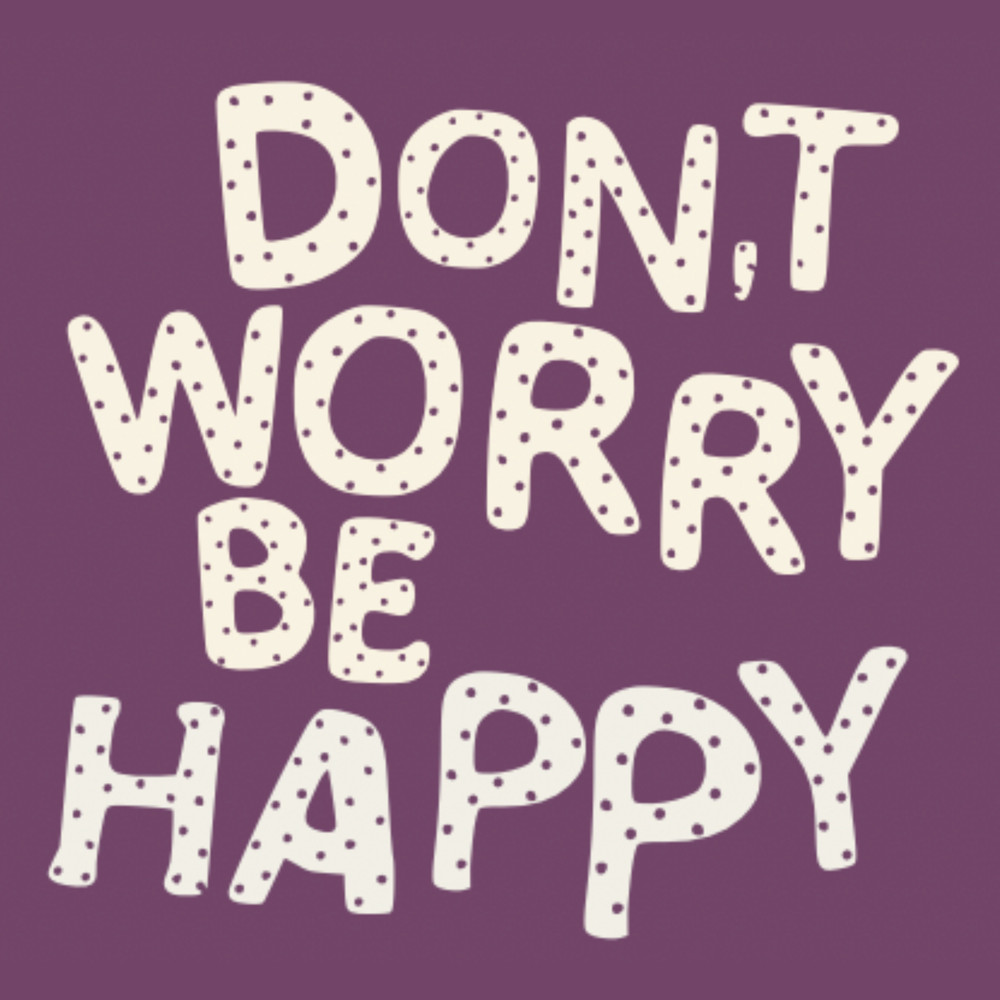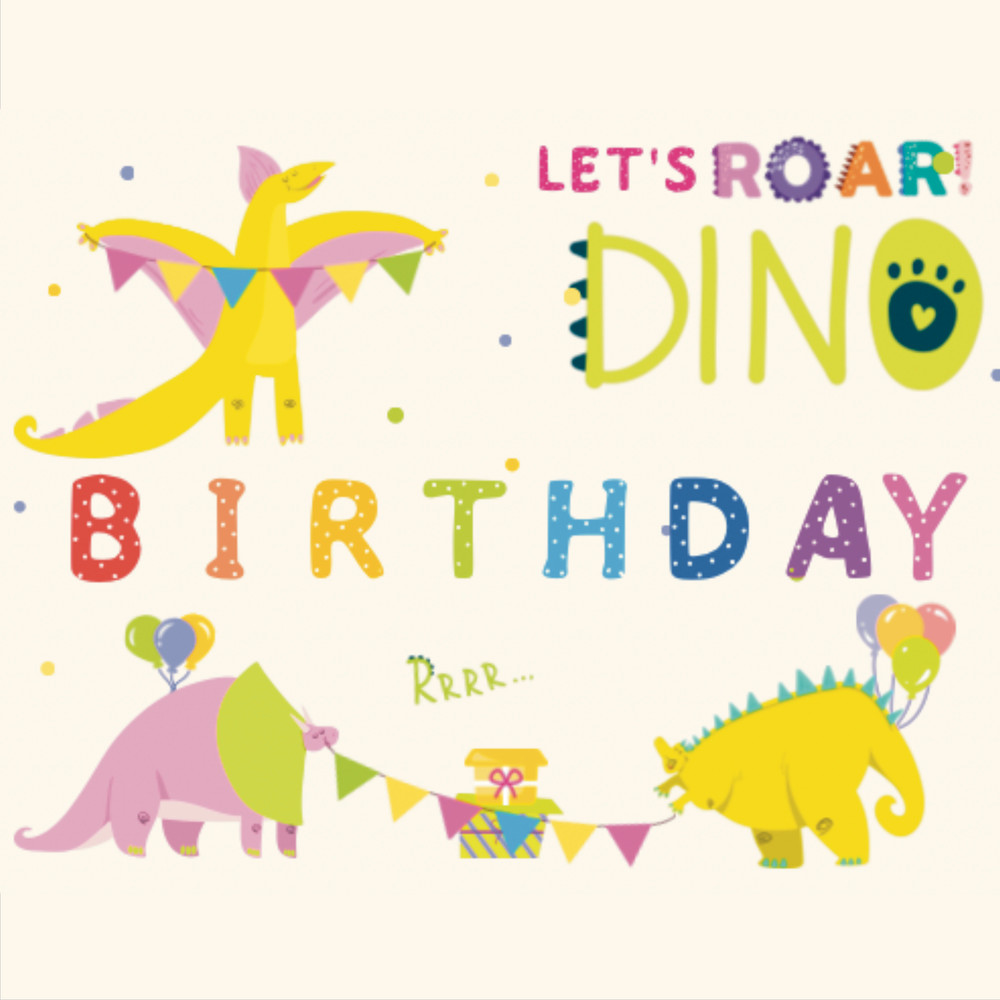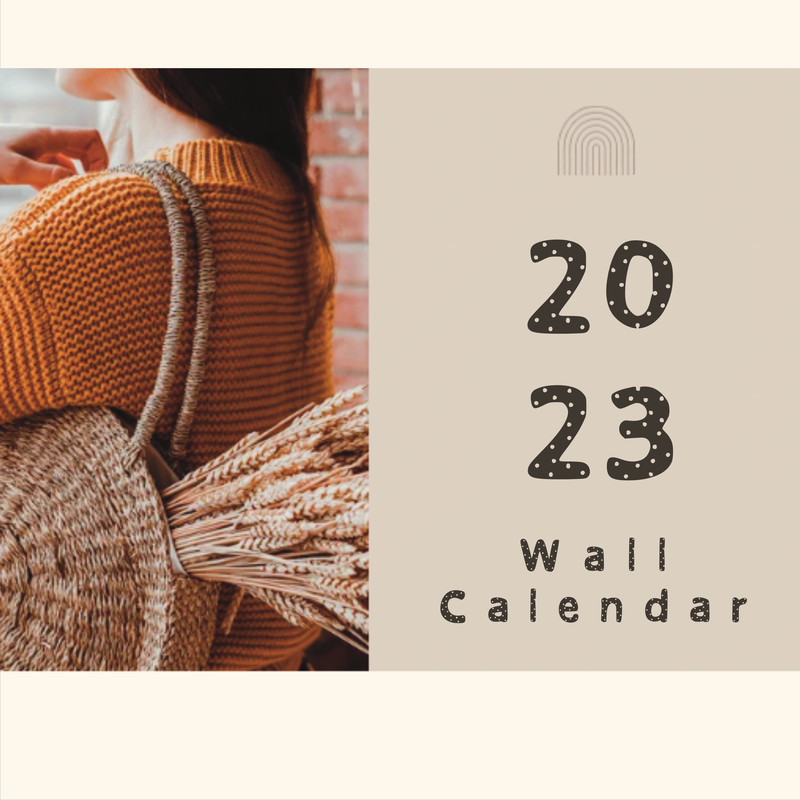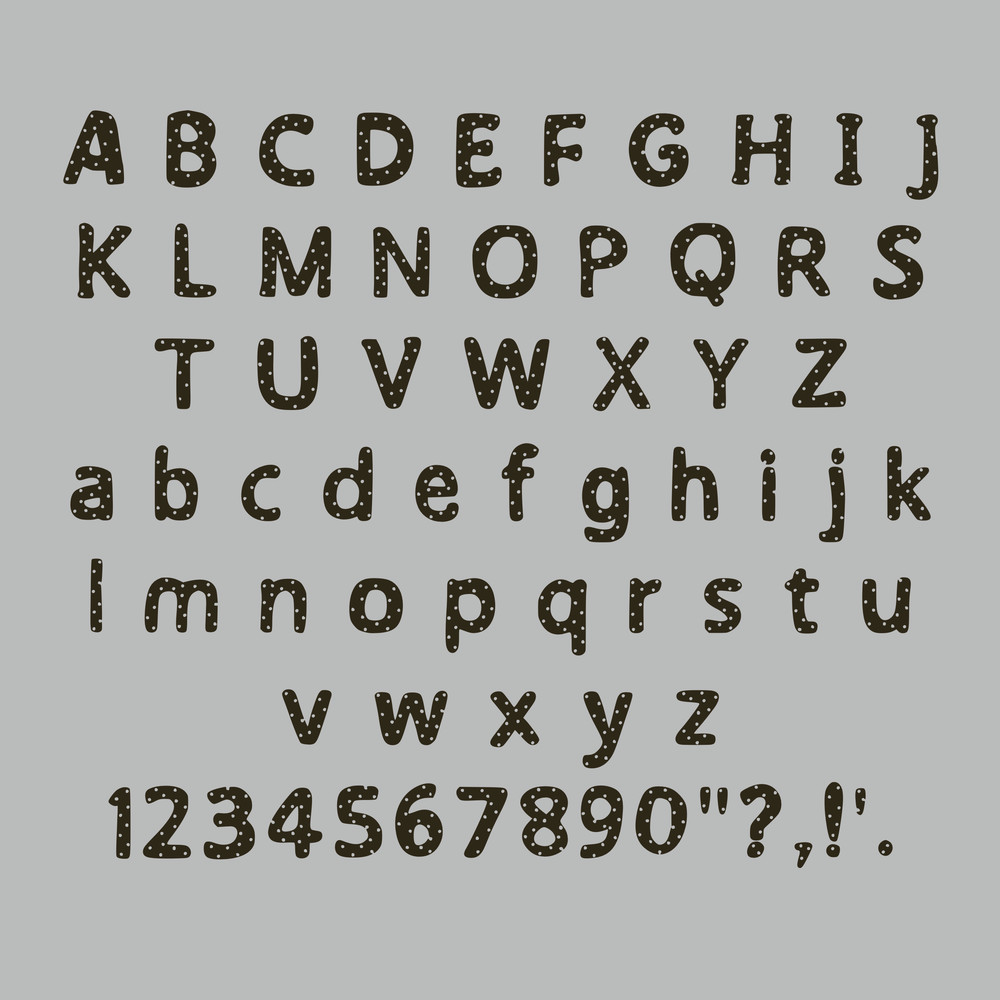
Dotted Font Display Crafty Font
Dotted is a cool and playful dotted decorative font. This original look will appeal to a wide range of crafty ideas, from letterheads and titles to stationery.